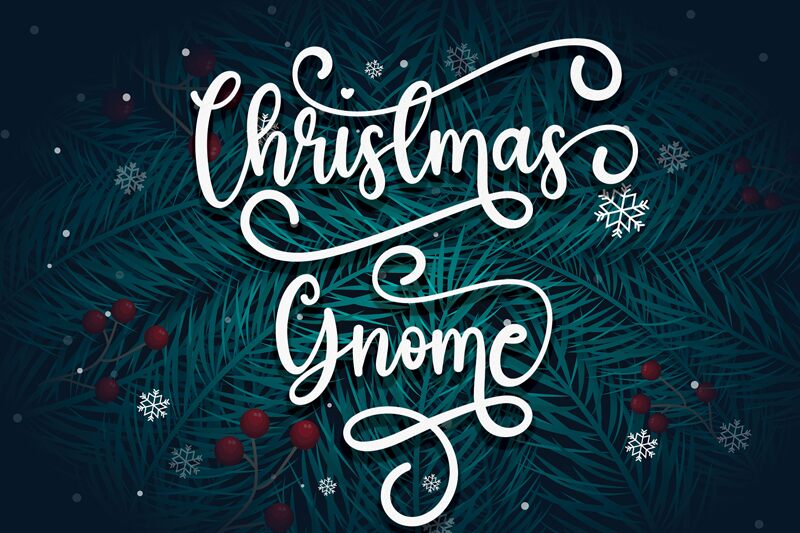
Christmas Gnome
Christmas Gnome is a whimsical calligraphy font designed by scratchones. This festive font is perfect for any holiday project, from greeting cards to party invitations. With its playful curves and elegant strokes, Christmas Gnome adds a touch of charm to any design. The semi-bold font offers a variety of widths, making it suitable for headlines and body text alike. Use it to create eye-catching posters or social media graphics that capture the spirit of the season. Whether you're designing for business or personal use, Christmas Gnome is sure to delight!
the latest style letters are perfect for wall displays, wedding invitations, social media post logos, advertisements, product packaging, product designs, labels, photography, watermarks, invitations, stationery, and any project that requires taste handwriting.